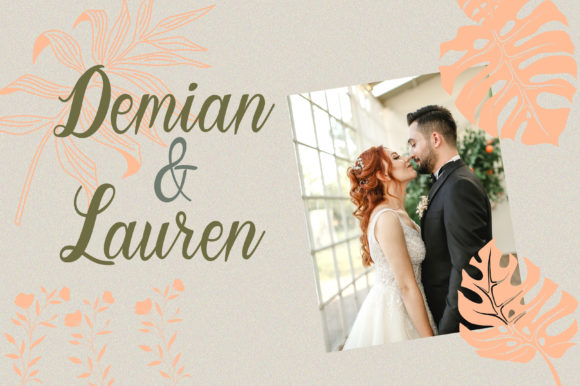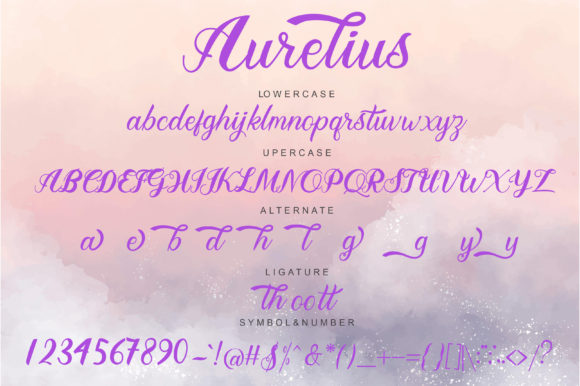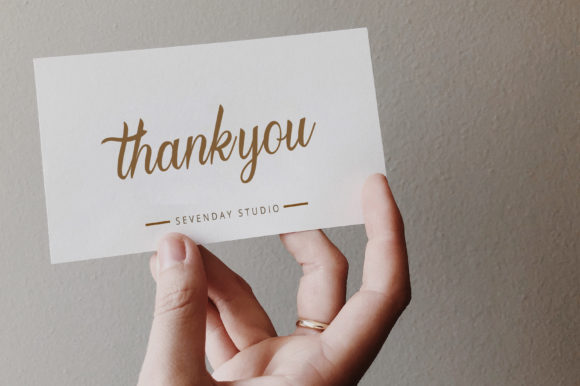
Introduction to Aurelius Font
Do you remember that moment when you’re brainstorming ideas for your next creative project, and suddenly, the perfect font pops into your mind? For designers, finding the right typeface can be the difference between a mediocre design and a stunning one. That’s exactly what happened when we stumbled upon the Aurelius Font – a beautiful, elegant handwritten font that elevates any design to the next level.
As a valuable resource for designers, the Aurelius Font is a high-quality, versatile typeface that can be used in a variety of projects, from invitation cards and t-shirt designs to branding, website fonts, and product labels. Its transparent background and smooth lines make it a perfect addition to any design, ensuring a consistent and professional look.
Key Features of Aurelius Font
- Transparent background for seamless integration into any design, making it ideal for graphic designers and digital artists.
- Supports a wide range of languages, including Latin, Cyrillic, and Greek alphabets, making it a versatile choice for global projects.
- Available in a single weight, with a resolution of 72 dpi, suitable for digital and web-based applications.
- Designed to be highly legible, with a clear and modern aesthetic, making it perfect for titles, headings, and body text.
Honest Review: Aurelius Font
I recently had the chance to work with the Aurelius Font, and I’m excited to share my thoughts on this high-quality design resource.
- ✨ Elegant and refined aesthetic, perfect for creative projects that require a touch of sophistication.
- ✨ The font is highly versatile, making it suitable for a wide range of applications, from logos to body text.
- ⚠️ Limited character set, which may not be ideal for projects that require a large number of unique characters.
- ⚠️ The font’s design can be quite dense, which may make it challenging to read in smaller sizes.
Aurelius Font
The Aurelius Font is a high-quality, free design resource that can elevate your creative project. With its sleek and modern design, it’s perfect for any project that requires a touch of sophistication.
Tips for Getting the Most Out of Aurelius Font
To get the most out of the Aurelius Font, use it on a transparent background to create a sleek and modern look. You can also experiment with different font sizes and styles to add depth and interest to your design.
The Aurelius Font is perfect for any creative project that requires a touch of sophistication. Some common use cases include:
– Business cards and letterheads
– Brochures and flyers
– Websites and landing pages
– Social media graphics and ads